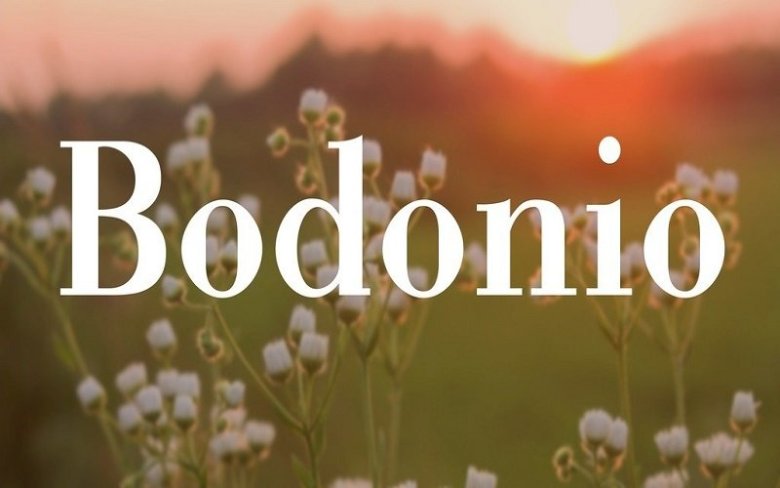
Bodonio Serif Font Family
The Bodon font is a well-known serif typeface series that has had a long history of interpretations by many design houses. The various font styles begin with Bodoni’s original Didone modern font in the late 1700s through to ATF’s American Revival in the early 1900s and into the digital age.
The original design had a bold look with contrasting strokes and an upper case that was a bit more condensed then its stylish influence Baskerville. The unbracketed serifs and even geometric styling has made this a popular font seen in almost every kind of typesetting situation, but particularly well suited for title fonts and logos.